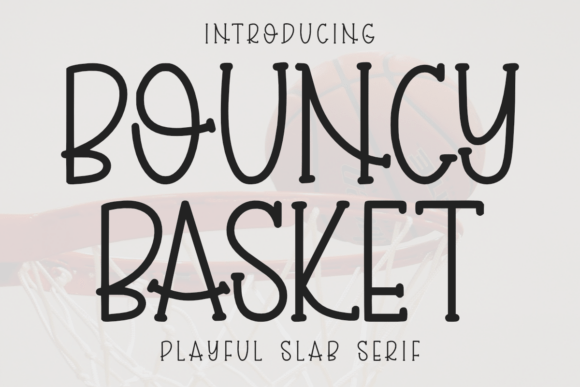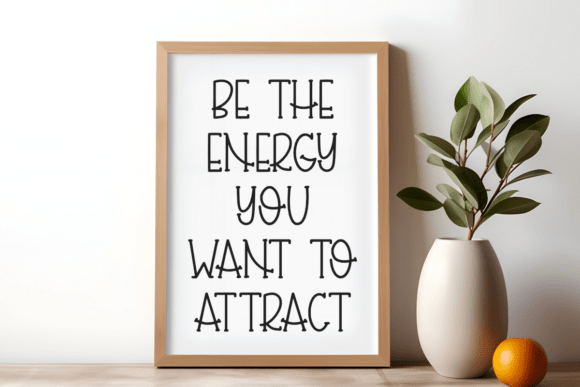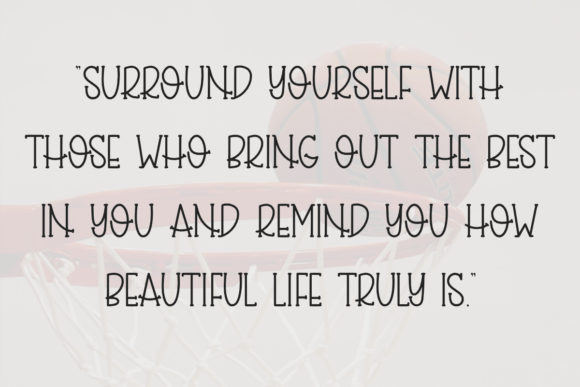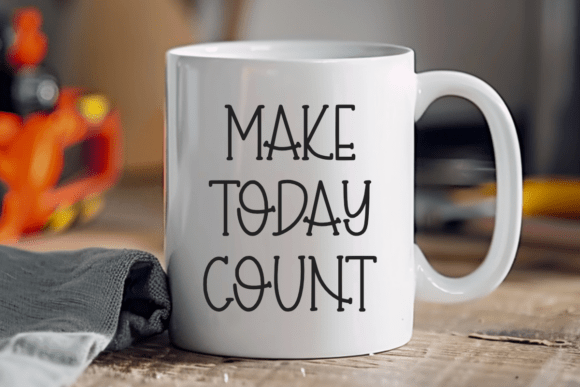
Bouncy Basket Font
About the Bouncy Basket Font
We are excited to introduce Bouncy Basket Font, a must-have typeface for any serious designer. Bouncy Basket is a playful handwritten font that’s perfect for crafts, planners, KDP, stickers, greeting cards, and more. With its cute and friendly style, it works great for Cricut, sublimation, and creative DIY projects. Ideal for crafters, designers, and makers!
Bouncy Basket’s playful nature makes it ideal for projects requiring a lighthearted and approachable feel, such as children’s books, branding for artisan food products, or social media graphics. It excels in headlines, short text blocks, and packaging design where its whimsical charm can shine. However, its informal style is less suitable for body text, lengthy paragraphs, or applications requiring high readability, like websites or UI elements.
Pairing Bouncy Basket effectively requires considering its handwritten style. A clean sans-serif like Open Sans or Lato provides a strong contrast, balancing the hand-drawn quality with modern readability. For a more playful pairing, a rounded geometric sans-serif could work well. Conversely, a delicate serif font might add a touch of sophistication to offset the bouncy quality.
The font embodies a friendly, approachable, and slightly quirky personality, making it perfect for brands targeting a young, creative audience. Avoid using it for projects needing a formal or sophisticated tone.
Bouncy Basket Font Usage Examples
Bouncy Basket Font Example